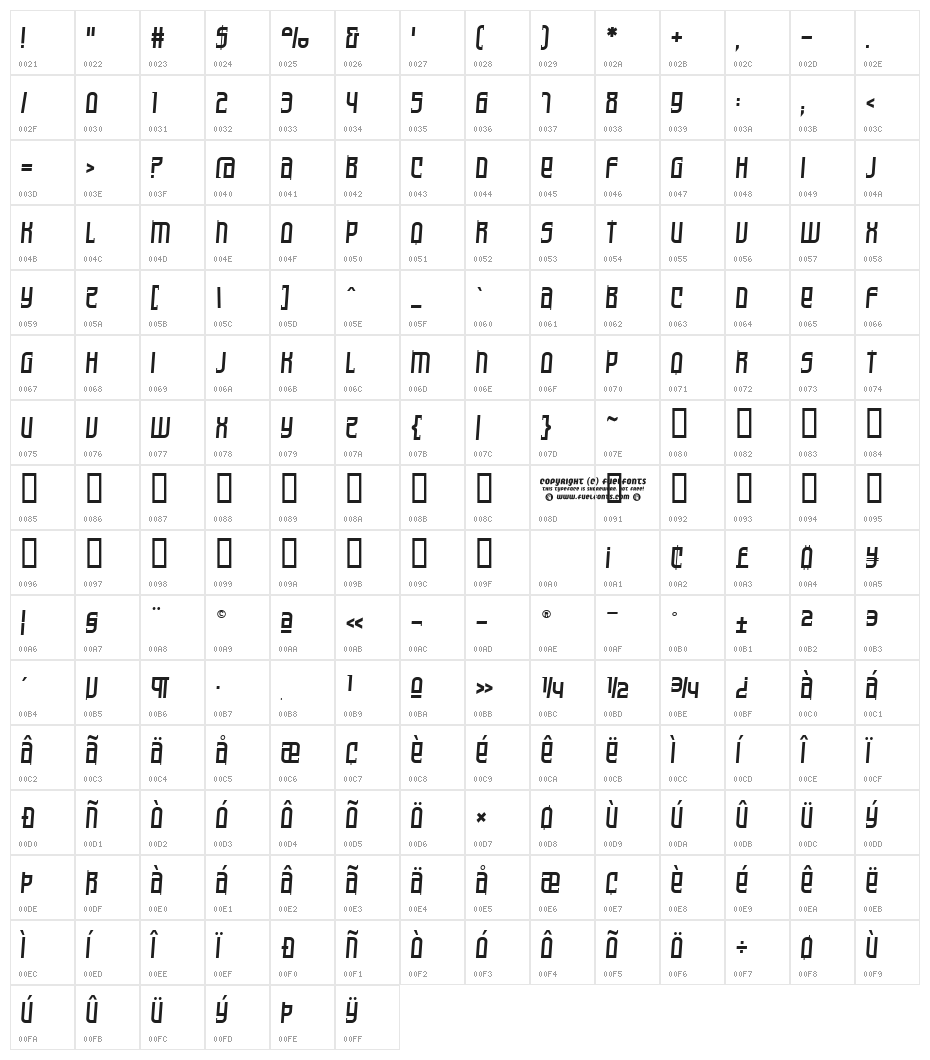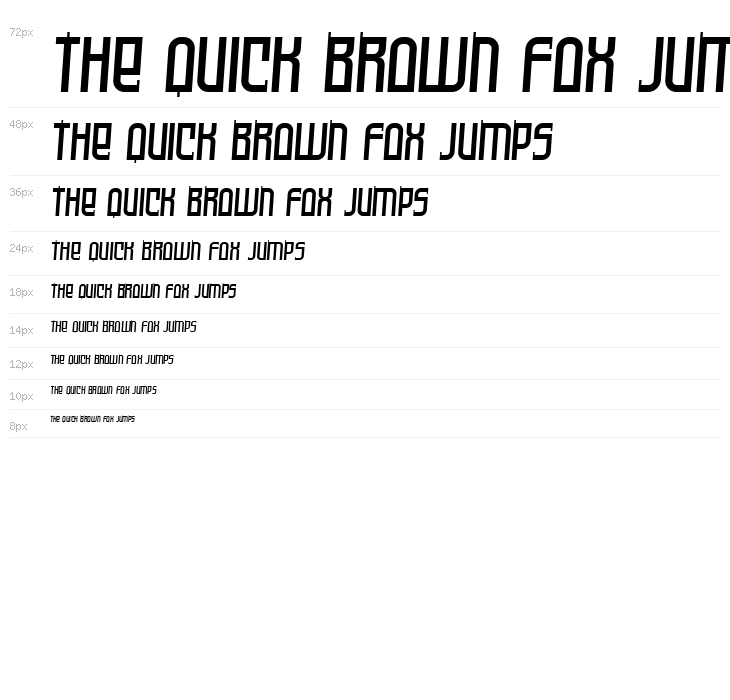
Armorica Oblique Font
Armorica Oblique Description
This font features a modern and geometric style with a distinct oblique slant, giving it a dynamic and forward-leaning appearance. The characters are constructed with clean, straight lines and sharp angles, creating a futuristic and technical feel. The uppercase and lowercase letters maintain a consistent height, enhancing readability while preserving a unique aesthetic. The numerals and special characters follow the same design principles, ensuring uniformity across all glyphs. This font's structured and sleek design makes it suitable for various contemporary applications.